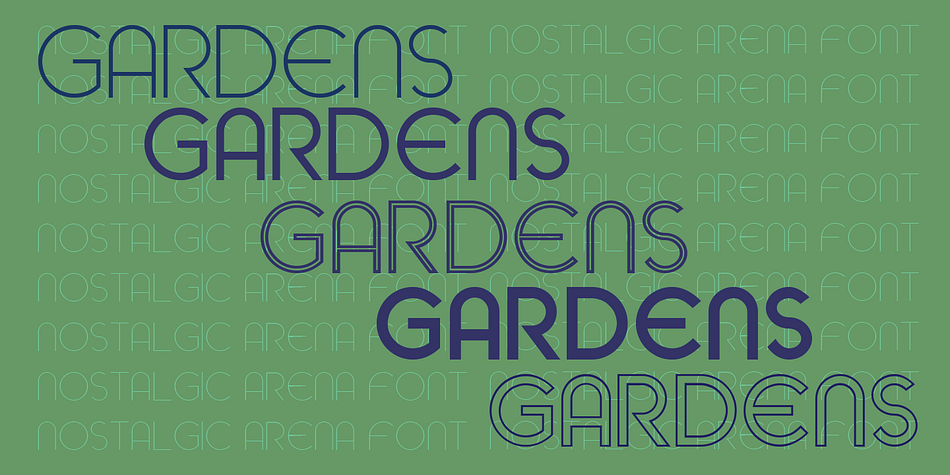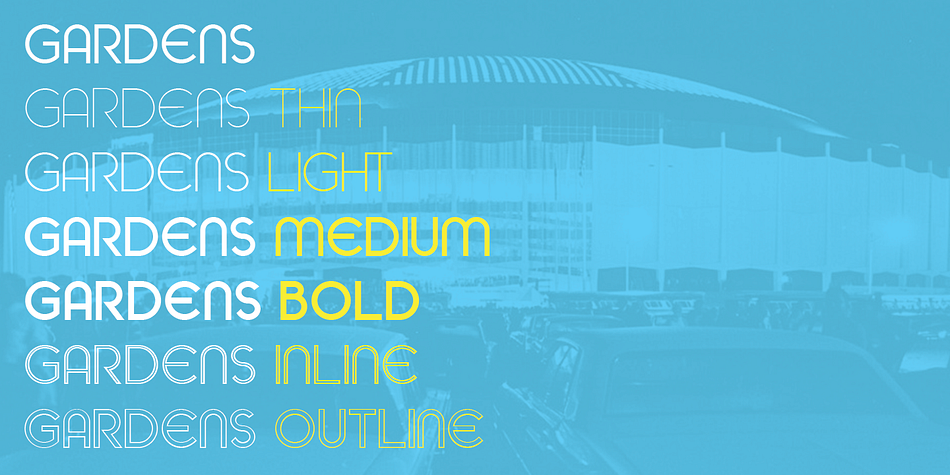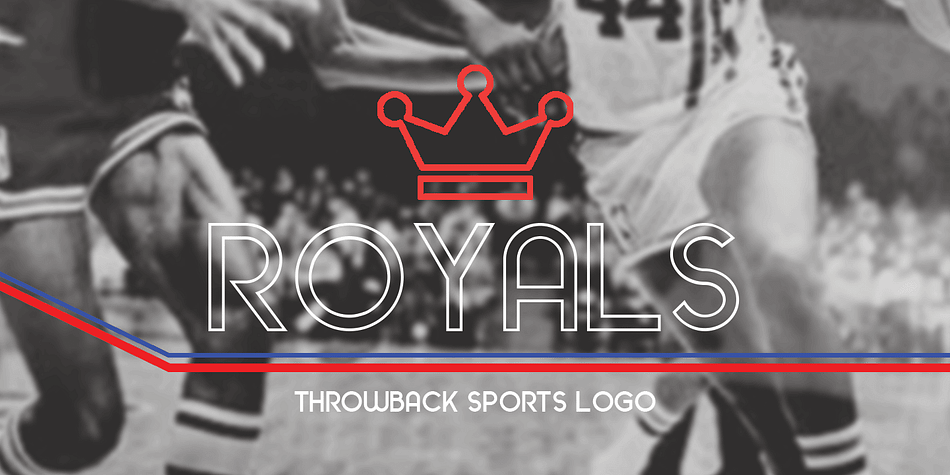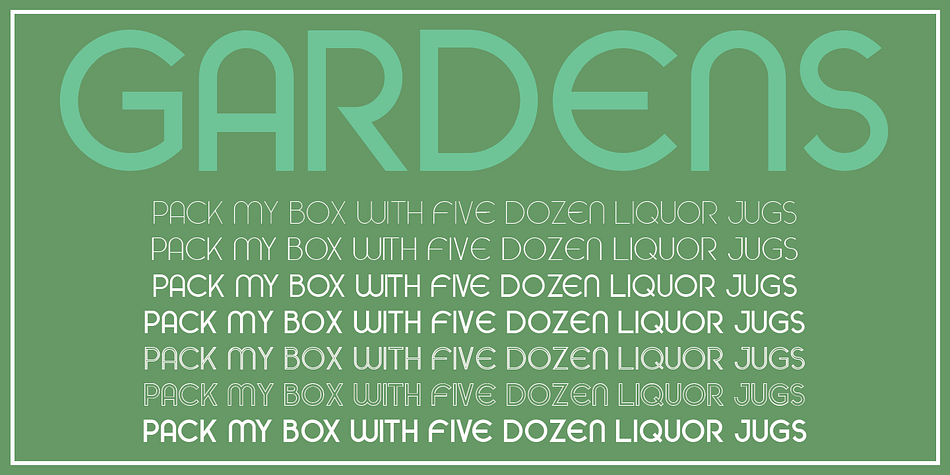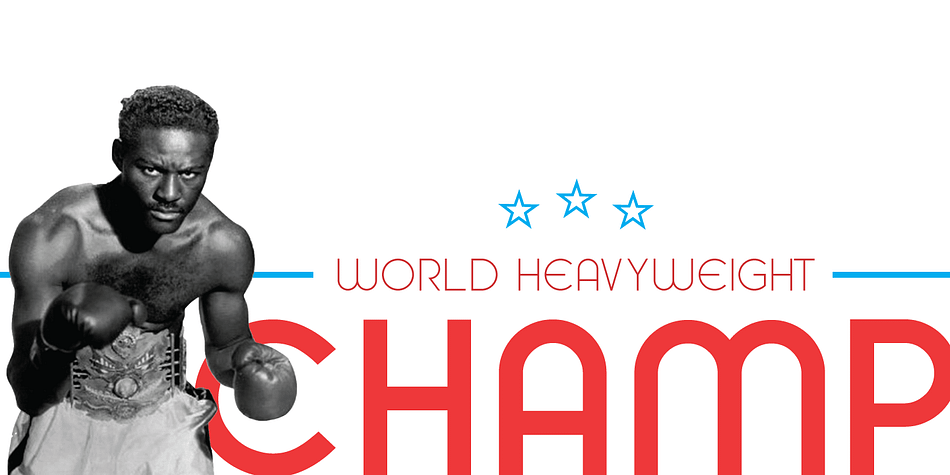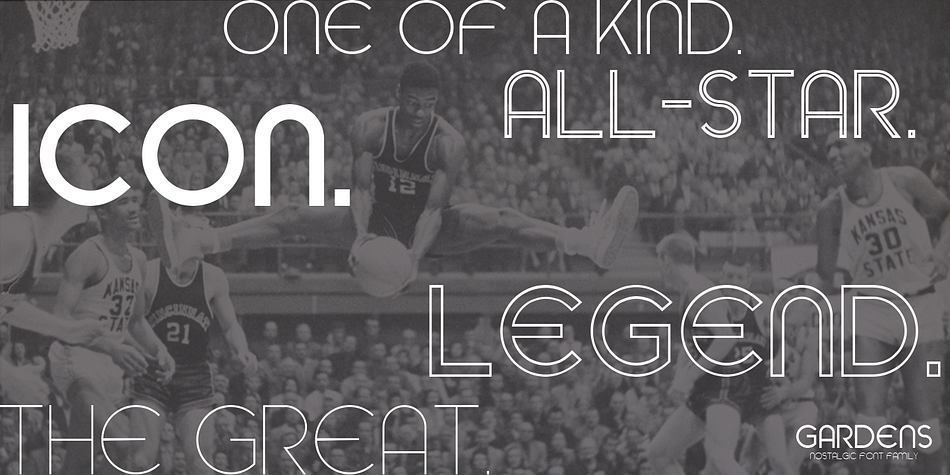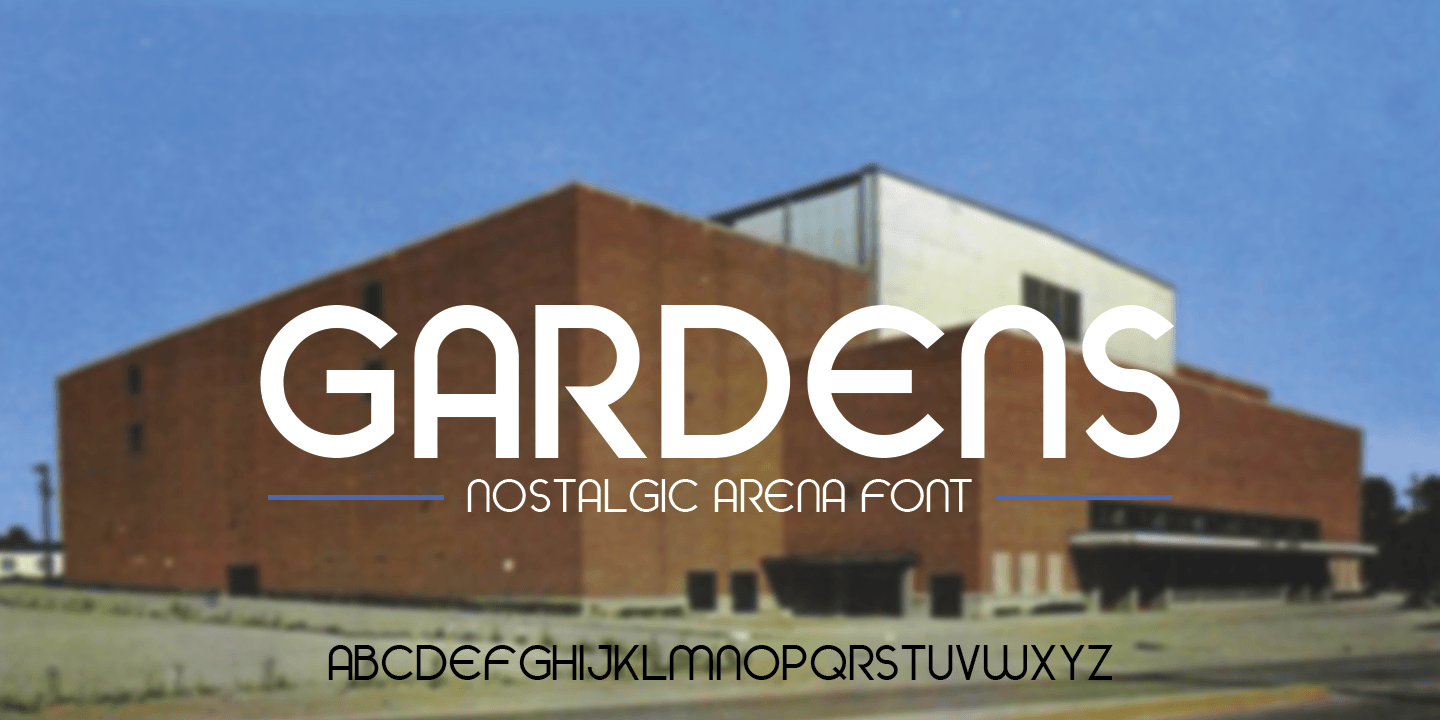
Designed by Doug Burns, Gardens is a display sans font family. This typeface has seven styles and was published by The Rivertown Inkery.
GARDENS is a font family inspired by a now arena, The Cincinnati Gardens. The font pack includes 7 different versions of GARDENS - Thin, Light Regular, Medium, Bold, Outline and Inline. With its retro sports look, Gardens is perfect for a variety of applications. Whether you are creating a poster, logo or team jersey; you will love this unique font!